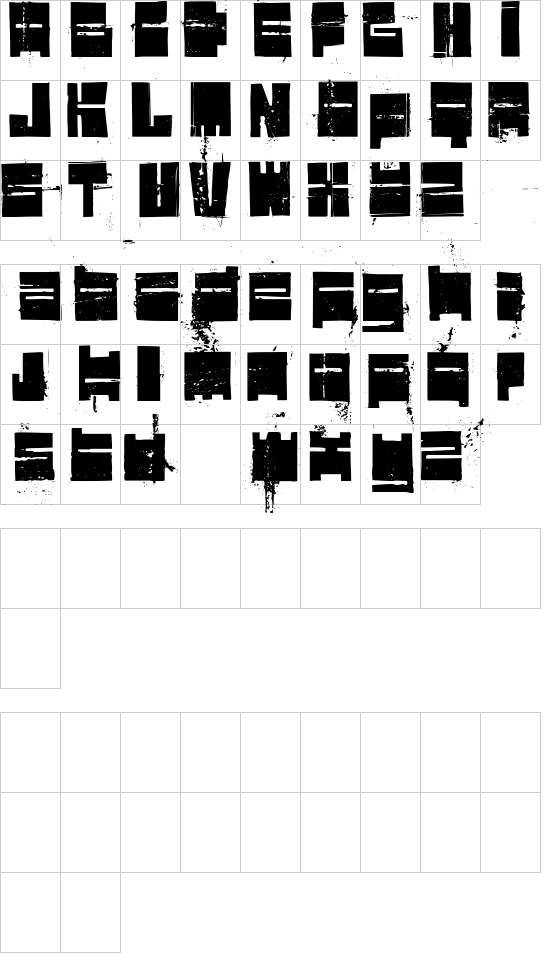
Valimo RMX is a remixed take on the squared Valimo style, keeping the blocky, modular letters but pushing them in a more experimental direction with altered details and twists. The result stays geometric and technical while feeling freer and more playful than the original.
It fits tech logos, game titles, futuristic posters, and modern geometric branding. Valimo RMX is free to download as a TrueType file, and you can preview it with your own text to see how its remixed, squared letters look across the names and headlines you have in mind before committing.